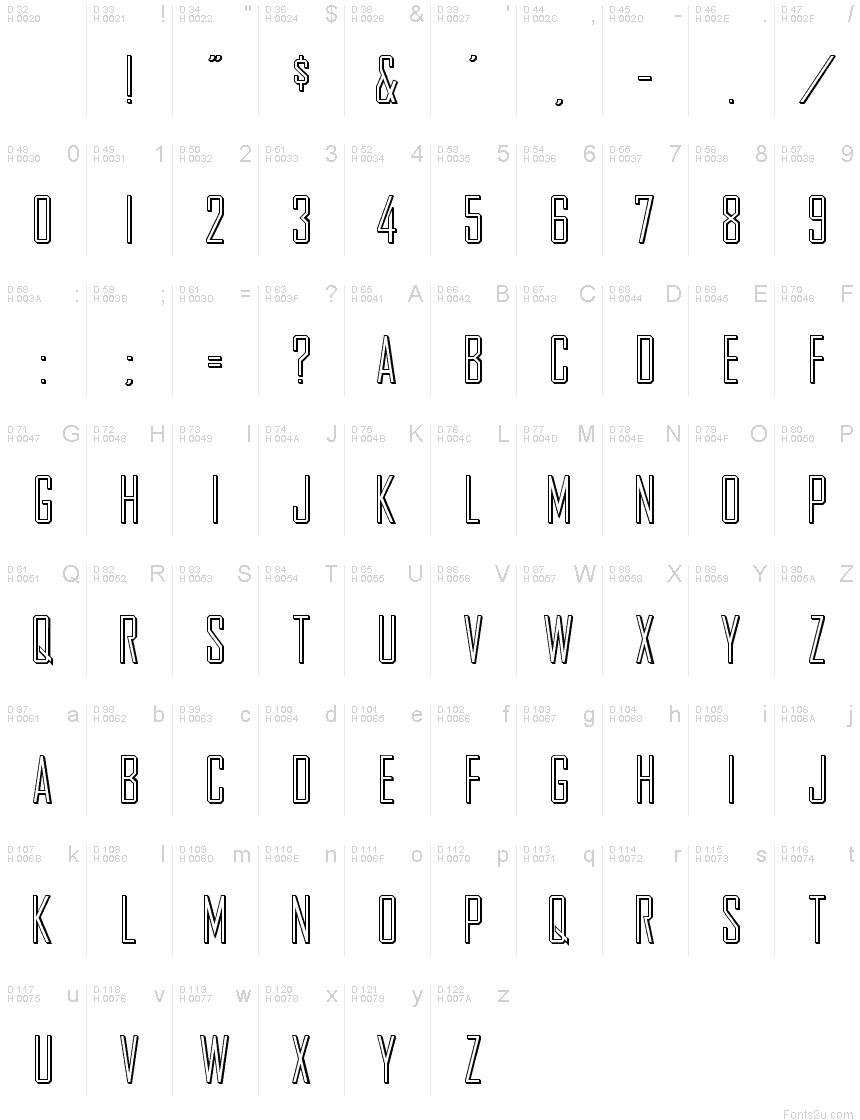
AgencyGothic
AgencyGothic font by The Font Factory/Charles Shields is a free outlined retro display typeface that looks like it’s been pulled straight from a mid-century marquee. Tall, condensed letters with squared shoulders and a crisp double-line outline create a striking, almost architectural rhythm that commands attention without feeling heavy. The open centers let color, texture, or imagery show through, so your words feel more like signage than simple text.
Using AgencyGothic, you can dial up the drama on posters, book covers, retro logos, album art, event flyers, and bold website hero graphics. This free font shines brightest at large sizes, where its slim inner strokes and clean outlines stay sharp and legible. For a simple pairing, match AgencyGothic with a plain, modern grotesque sans for body copy to keep the focus on its bold, sign-painter energy.